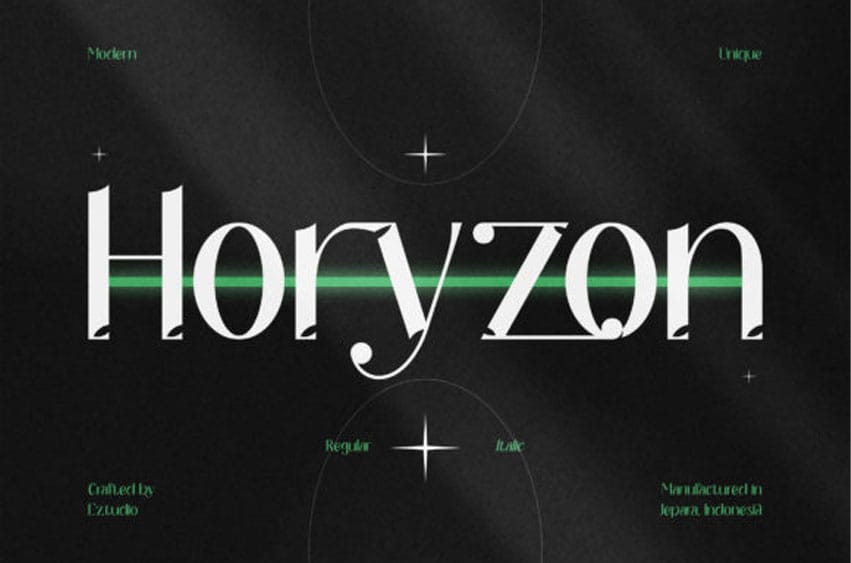
Horyzon Font is a modern, elegant, and luxurious serif font.
It looks beautiful on a variety of designs requiring a personalized style, such as wedding invitations, thank you cards, weddings, greeting cards, logos, and so on.